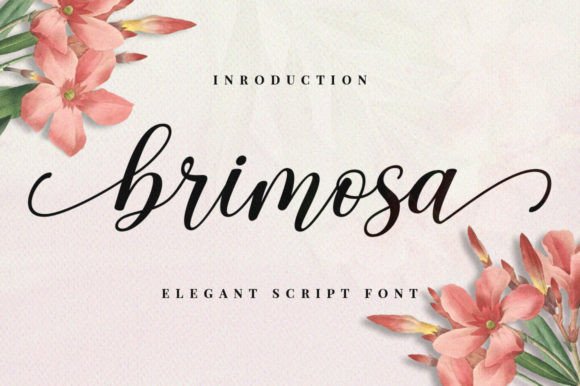
The Elegance of Brimosa Font: A Designer’s Delight
I’ll never forget the time I was working on a wedding invitation project, and my client asked me to create a design that exuded elegance and sophistication. I scoured the internet for the perfect font, but nothing seemed quite right. That was until I stumbled upon Brimosa font. ✨ With its clean lines, graceful curves, and flowing effect, it was love at first sight! In this article, I’ll share my experience with Brimosa font, its features, and how to make the most of it in your designs.
An Honest Review of Brimosa Font
- ✨ Modern and elegant design: Brimosa font is perfect for projects that require a touch of sophistication and refinement.
- ✅ PUA encoded: This means you can access all glyphs and swashes effortlessly, making it easy to create stunning designs.
- 💫 Clean lines and graceful curves: The font’s design creates a beautiful, flowing effect that’s perfect for wedding invitations, branding, and more.
While Brimosa font is a stunning addition to any project, there are a few things to keep in mind: 🤔
- ⚠️ Limited use cases: While the font is versatile, it’s best suited for designs that require a touch of elegance and sophistication.
- ⚠️ May require additional design elements: Depending on the project, you may need to add additional design elements to make the most of the font’s features.
The Designer Inspiration Behind Brimosa Font
Brimosa font was designed with the intention of creating a modern and elegant font that would add sophistication to any project. The designer drew inspiration from classic serif fonts, adding a touch of modernity and whimsy to create a unique and beautiful font.
| Font Name | Brimosa Font |
| Author | doratypefoundry |
Q: What is Brimosa font?
A: Brimosa font is a modern and elegant font designed to add sophistication to any project.
Q: Is Brimosa font PUA encoded?
A: Yes, Brimosa font is PUA encoded, making it easy to access all glyphs and swashes.